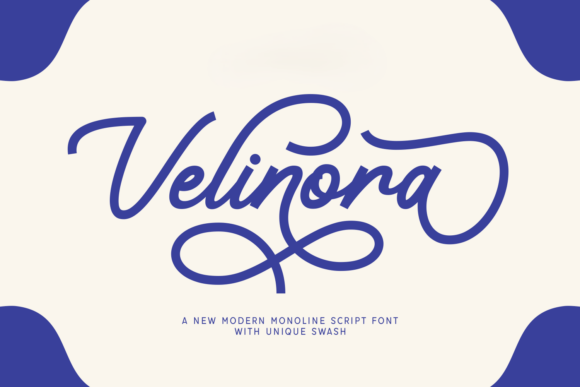
Introducing Velinora Font: The Ultimate Bold and Stylish Monoline Script Font
Are you looking for a font that can add a touch of elegance and sophistication to your branding, product labels, or modern calligraphy logos? Look no further than Velinora Font, a bold and stylish monoline script font that is sure to bring confidence and flair to any project.
What is Velinora Font?
Velinora Font is a modern script font that features strong curves and expressive swashes, making it perfect for a variety of design applications. Its monoline construction gives it a sleek and streamlined look that is both stylish and sophisticated.
Key Features of Velinora Font
- Bold and Stylish: Velinora Font is a bold and stylish monoline script font that is sure to make a statement in any design project.
- Strong Curves: The font features strong curves that give it a smooth and fluid look.
- Expressive Swashes: Velinora Font includes expressive swashes that add a touch of elegance and sophistication to any design.
- Monoline Construction: The font’s monoline construction gives it a sleek and streamlined look that is both stylish and modern.
Uses for Velinora Font
Velinora Font is a versatile font that can be used in a variety of design applications, including:
- Branding: Use Velinora Font to create a bold and stylish brand identity that is sure to stand out.
- Product Labels: The font’s strong curves and expressive swashes make it perfect for product labels that need to make a statement.
- Modern Calligraphy Logos: Velinora Font is ideal for modern calligraphy logos that require a touch of elegance and sophistication.
Benefits of Using Velinora Font
There are many benefits to using Velinora Font in your design projects, including:
- Unique and Memorable: Velinora Font is a unique and memorable font that is sure to make your design stand out.
- Versatile: The font can be used in a variety of design applications, from branding to product labels.
- Elegant and Sophisticated: Velinora Font adds a touch of elegance and sophistication to any design.
Tips for Using Velinora Font
Here are a few tips for using Velinora Font in your design projects:
- Use it Bold: Velinora Font is a bold font, so don’t be afraid to use it boldly in your designs.
- Experiment with Swashes: The font’s expressive swashes can add a touch of elegance and sophistication to any design.
- Pair it with Other Fonts: Velinora Font can be paired with other fonts to create a unique and interesting design.
Velinora Font is a bold and stylish monoline script font that is perfect for branding, product labels, and modern calligraphy logos. Its strong curves and expressive swashes make it a versatile font that can be used in a variety of design applications. With its unique and memorable look, Velinora Font is sure to bring confidence and flair to any project.
- What is Velinora Font? Velinora Font is a bold and stylish monoline script font featuring strong curves and expressive swashes.
- What is Velinora Font used for? Velinora Font can be used for branding, product labels, and modern calligraphy logos.
- Is Velinora Font easy to read? Yes, Velinora Font is easy to read, even in small sizes.